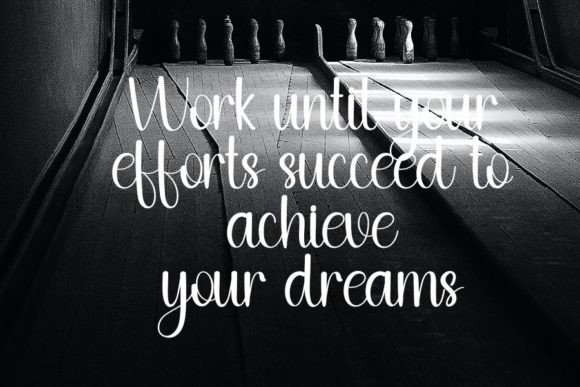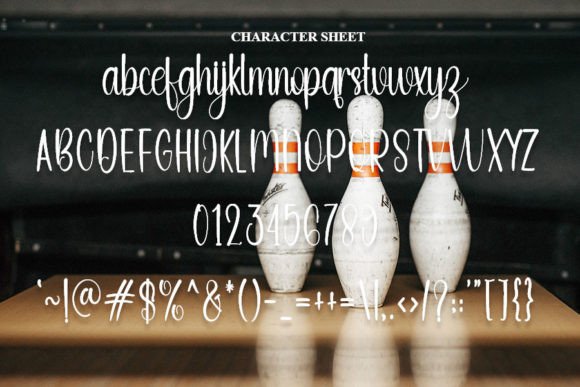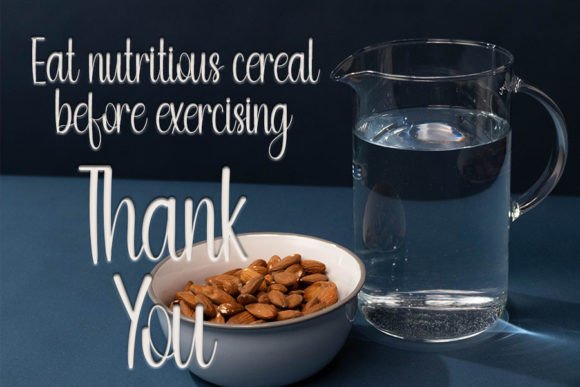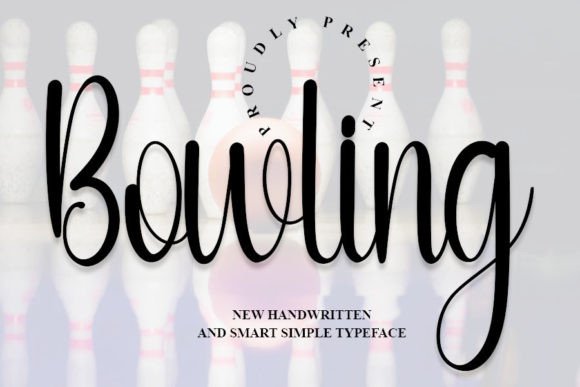
The Elegance of Bowling Font: A Designer’s Delight
I still remember the design project that led me to discover the Bowling Font. I was working on a luxury brand’s brochure, and my client specifically asked for a font that exuded elegance and sophistication. I scoured the internet, tried out numerous fonts, but none seemed to fit the bill. That’s when I stumbled upon Bowling Font, and it instantly became my go-to choice. In this article, I’ll share my experience with Bowling Font, its features, and how to make the most of it in your design projects.
A Personal Review of Bowling Font
Bowling Font has been a game-changer for me, and here’s what I love about it:
- ✨ Timeless elegance: Bowling Font has a classic, calligraphic feel that adds a touch of sophistication to any design project.
- ✅ Contemporary atmosphere: Despite being inspired by traditional calligraphy, Bowling Font has a modern twist that makes it perfect for contemporary designs.
- 💯 Impeccable form: The font’s attention to detail and precise lettering make it a joy to work with.
Of course, no font is perfect, and here are a few quirks to keep in mind:
- 🤔 Limited multilingual support: Bowling Font may not support as many languages as some other fonts, so be sure to check the character set before using it for a multilingual project.
- ⚠️ Occasional kerning issues: As with any font, you may encounter some kerning issues, especially when using it at smaller sizes.
The Story Behind Bowling Font
Bowling Font was inspired by traditional calligraphy and designed with a modern twist. Its creator aimed to craft a font that would bring elegance and sophistication to design projects. With its impeccable form and contemporary atmosphere, Bowling Font has become a popular choice among designers.
| What is Bowling Font inspired by? | Bowling Font is inspired by traditional calligraphy with a modern twist. |
| Is Bowling Font suitable for body text? | While Bowling Font is elegant, it’s best used for headlines, titles, and short paragraphs. For body text, consider a more legible font. |
| Does Bowling Font support multiple languages? | Bowling Font has limited multilingual support, so it’s best to check the character set before using it for a multilingual project. |